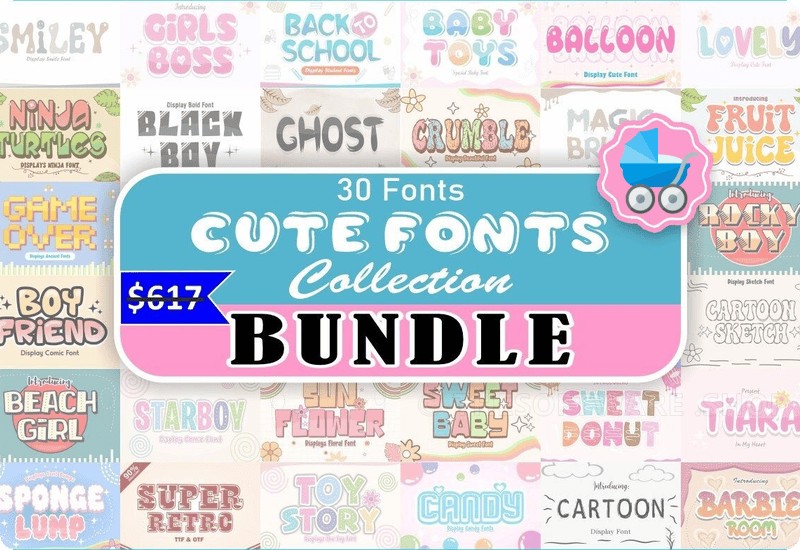
What is the Cute Fonts Bundle?
Imagine if you had a magical box filled with 30 different fonts—each font designed to make your words look super fun and eye-catching! That’s exactly what the Cute Fonts Bundle is. It’s a big collection of premium, high-quality fonts that you can use to make posters, invitations, school projects, and so much more. Even better? You don’t have to pay a single penny for it!
What’s So Special About This Font Bundle?
Let’s think of fonts as the clothes for your words. Sometimes you need something bold to make a statement, while other times you want something soft and friendly. This font bundle has it all! You’ll find fonts that look playful, fun, and perfect for adding a little bit of magic to any project.
So, why should you care? Well, these fonts:
- Look Awesome: From bubbly letters to retro styles, they add personality.
Imagine getting a whole closet of fancy clothes for free—that’s what this bundle does for your words!
Which Fonts Are in the Bundle?
Here’s a peek at some of the fun-tastic fonts you’ll find in this bundle:
- Toy Story Display Font: Perfect for bringing that classic, fun vibe!
- Blood Display Font: Great for Halloween themes or anything spooky!
- Starboy Display Font: Adds a modern, starry vibe to your designs.
- Balloon Display Font: Big, bubbly letters—like floating balloons!
- Sweet Donut Display Font: Just like a donut, it’s cute and sweet!
- Fruit Juice Display Font: Fun and fruity, perfect for summer designs.
- Game Over Display Font: Retro, video-game inspired.
- Magic Brush Display Font: Like a magical, handwritten brush stroke.
- Ghost Display Font: Spooky letters for Halloween or ghostly designs.
- Bounce Display Font: Letters that look like they’re bouncing with energy.
- Candy Display Font: Soft and sugary, like a bag of colorful candy.
- Back to School Display Font: A school-inspired look for projects.
That’s just a sample—there are 30 fonts in total, each bringing its own unique style! No matter what you’re working on, you’ll find the perfect font here.
Let’s talk about all the fun ways you can use these fonts!
1. School Projects
Need to make a poster for science class? Or a title for your history project? Pick a font like Back to School or Galaxy Display to make your project stand out and impress everyone.
2. Party Invitations
Throwing a birthday bash? Choose Balloon Display Font or Sweet Baby for a fun, friendly look that says, “Come celebrate with us!”
3. Cards and Gifts
Want to make a special card for your mom’s birthday or a friend’s graduation? Fonts like Lovely Display or Candy make it easy to add a sweet, thoughtful touch.
4. Fun Games and DIY Crafts
Making a treasure map? Try using Pirate Display Font! Planning a Halloween event? Blood Display Font or Ghost Display are perfect for spooky projects!
5. Social Media Posts
Fonts like Starboy and Ninja Turtles will make your captions or quotes look extra cool when you share them on Instagram or Facebook.